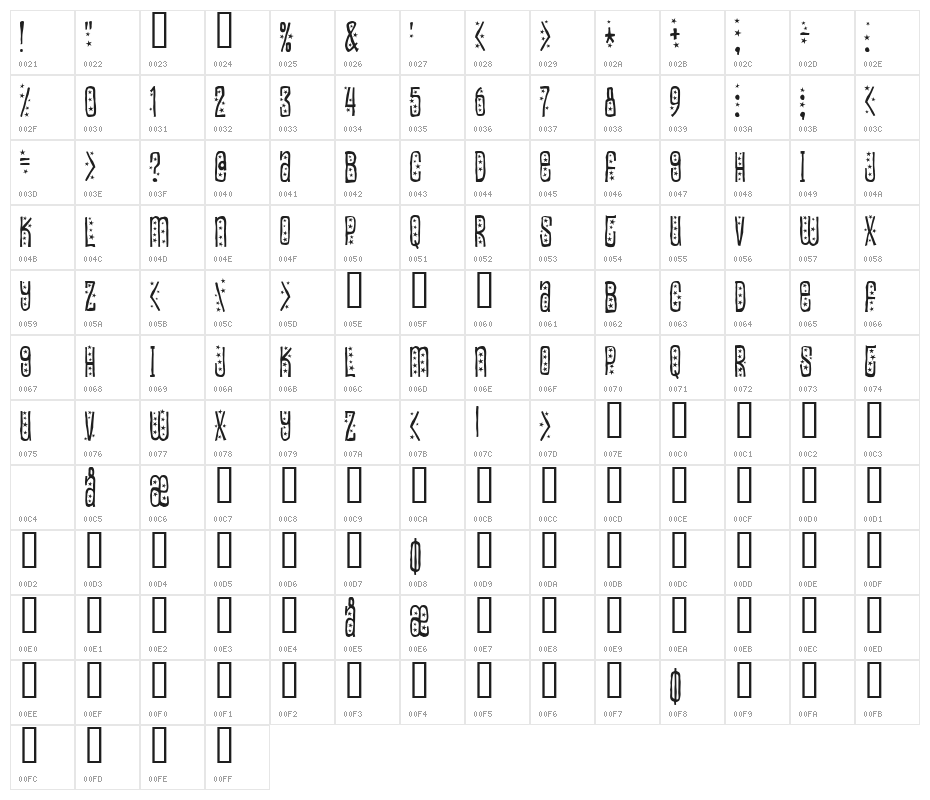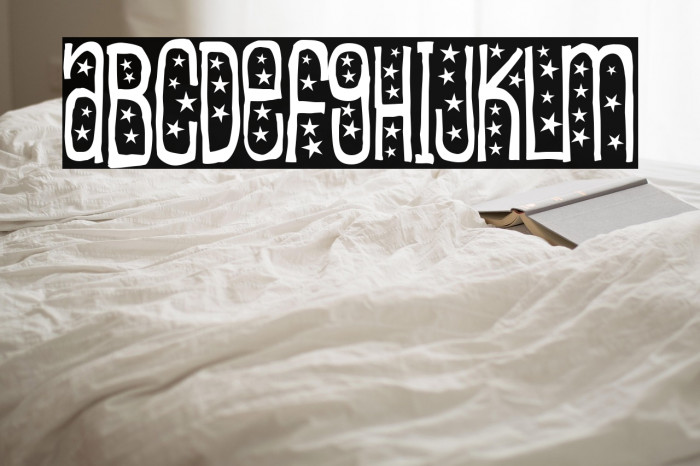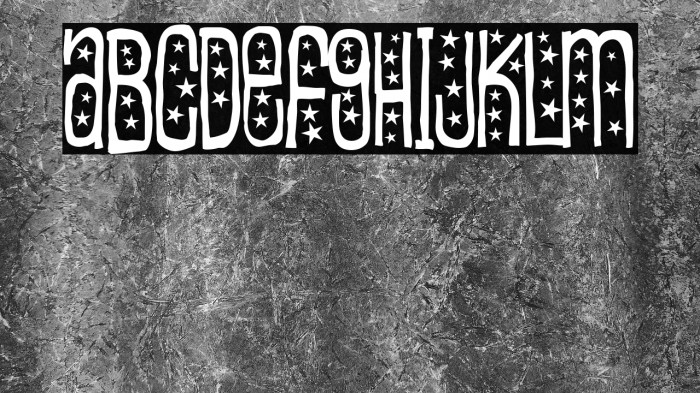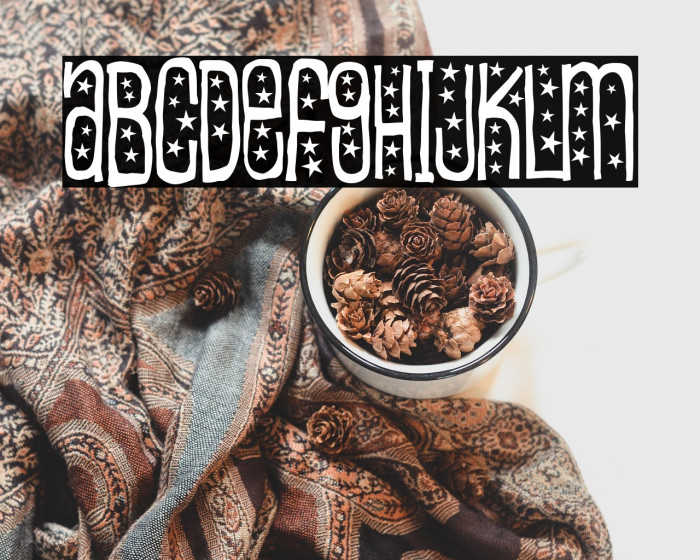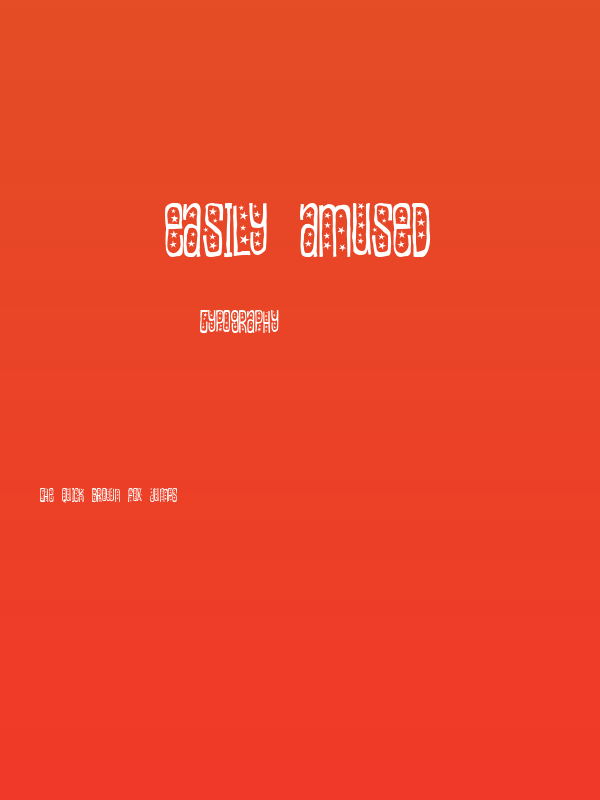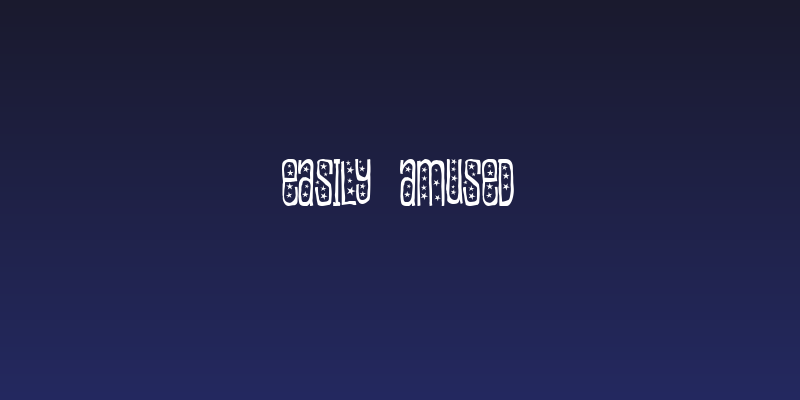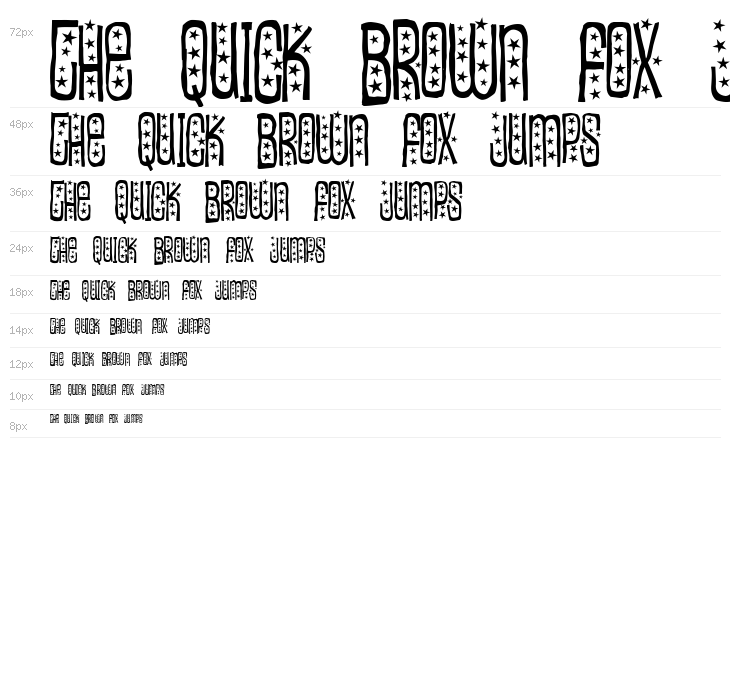
Easily amused Font
Easily amused Description
This decorative font features a playful and whimsical design, with each character adorned with stars. The letters are bold and have a unique, eye-catching style that makes them stand out. The uppercase and lowercase letters maintain a consistent theme, with the stars adding a fun and energetic touch. The numbers and special characters follow the same design, ensuring a cohesive look across all elements. This font is perfect for projects that require a lively and engaging aesthetic.
| Proposed Projects | Ideal for children's book covers, party invitations, festive banners, and playful branding materials. |